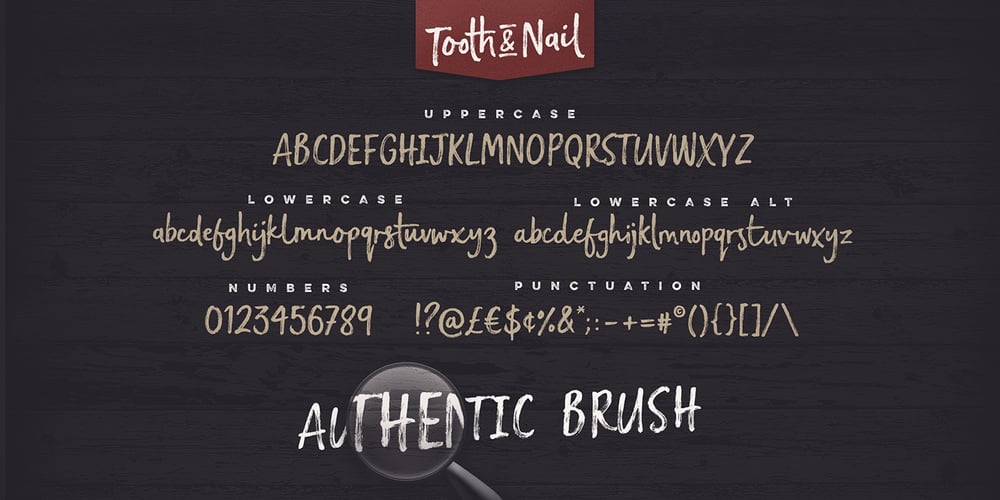
Tooth & Nail Font Family was designed by Sam Parrett and published by Set Sail Studios. Tooth & Nail contains 2 styles and family package options. Introducing Tooth & Nail; a rustic & hearty hand-painted dry brush font, designed to work in both all-caps as well as lowercase. It also includes a bonus vector pack, featuring 24 elements designed to boost your text and reaffirm it’s hand-made style. With rough bold strokes and high quality textures throughout, Tooth & Nail is the perfect workhorse font for product packaging, promotional messages, handwritten quotes, home decor and branding projects. Tooth & Nail is reliable and familiar, like meeting someone for the first time and feeling like you’ve been reunited with an old friend. Tooth & Nail consists of 2 styles: 1. Tooth & Nail • A handwritten brush font containing upper & lowercase characters, numerals and a large range of punctuation. 2. Tooth & Nail Alt • This is a second version of Tooth & Nail, with a completely new set of lowercase characters. If you wanted to avoid letters looking the same each time to recreate a custom-made style, or try a different word shape, simply switch to this font for an additional layout option.